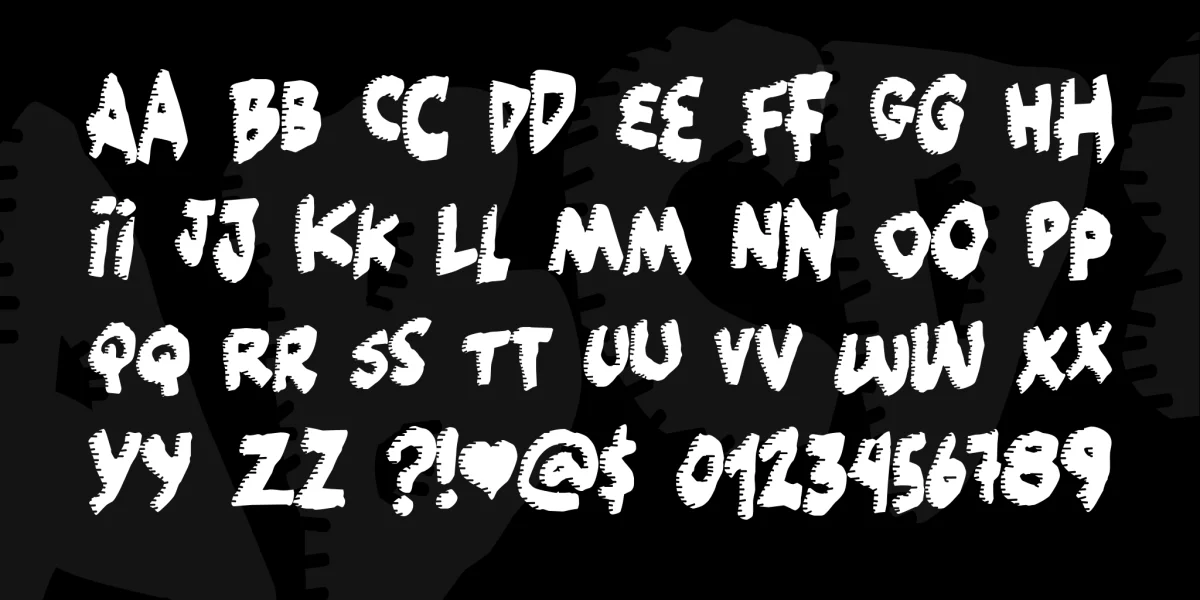
This font was actually made in 2000, when my scanner was working. Once created I thought it looked a little dull, that's why I made them "speed-lines" in the font, they are all handmade in FontLab, and took ages to do!